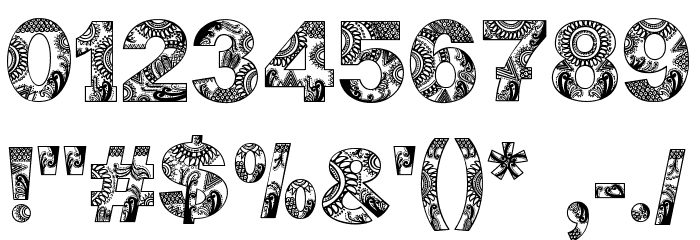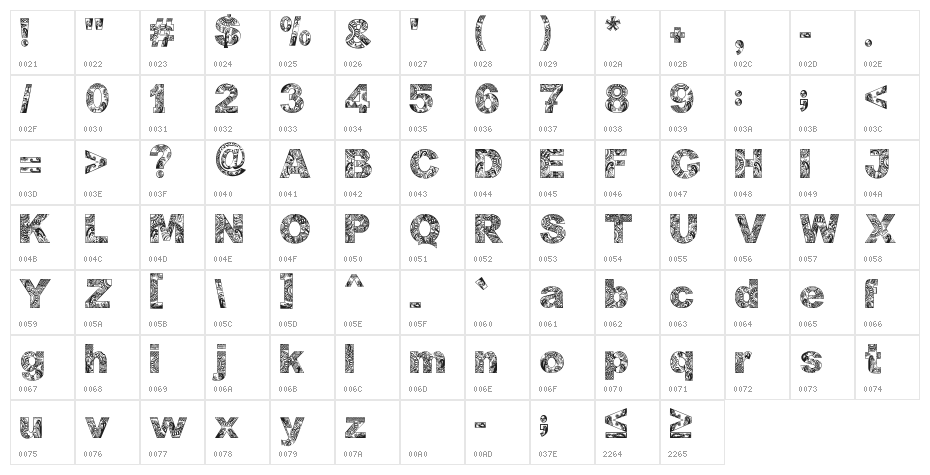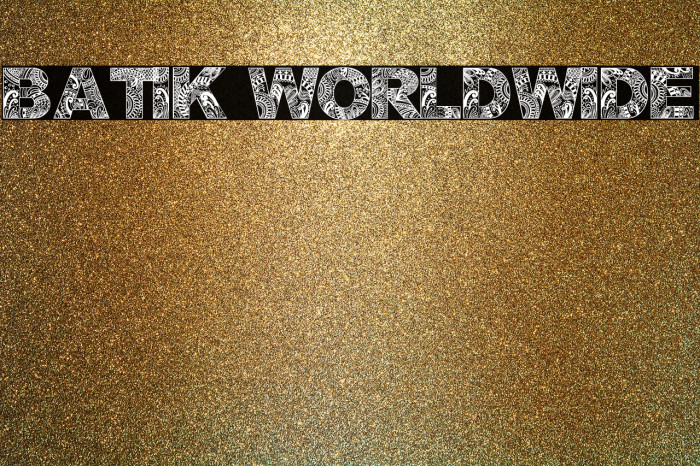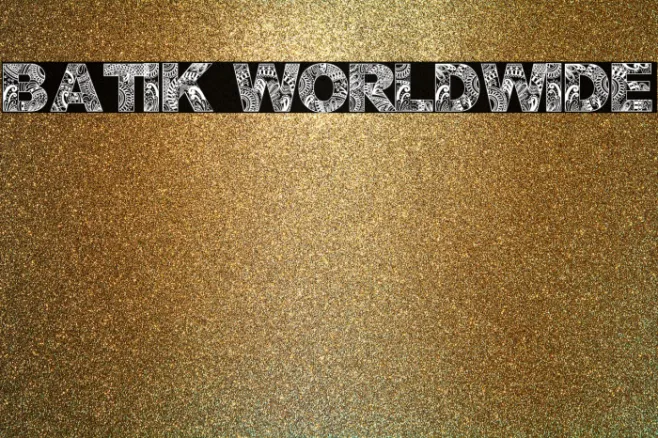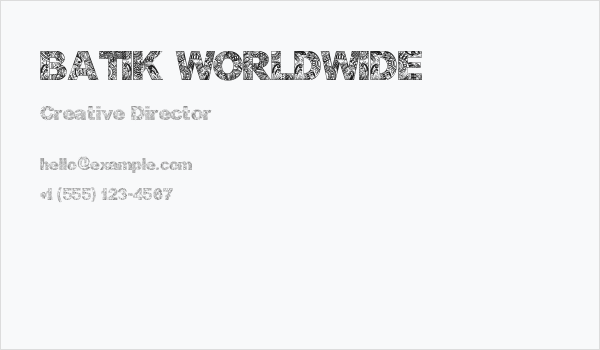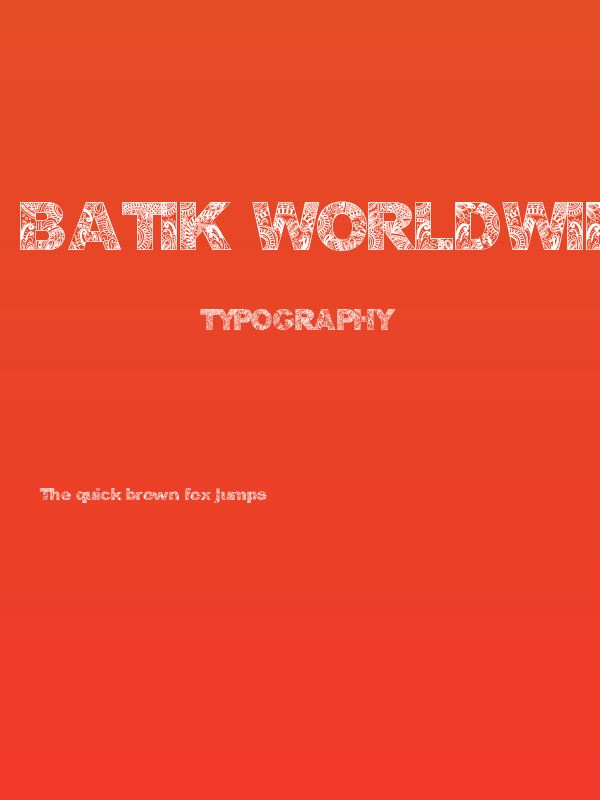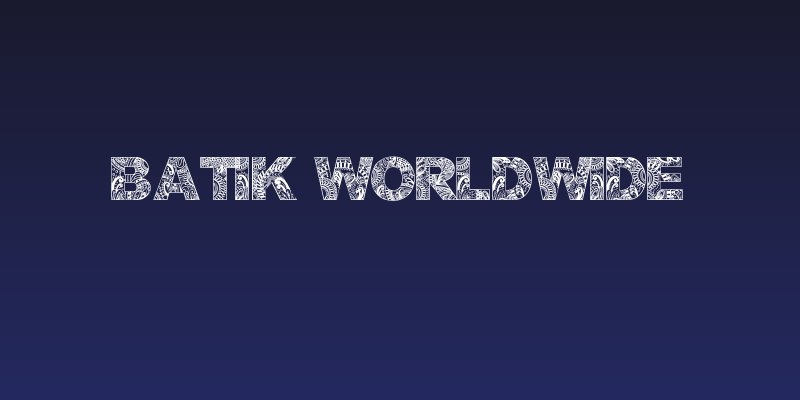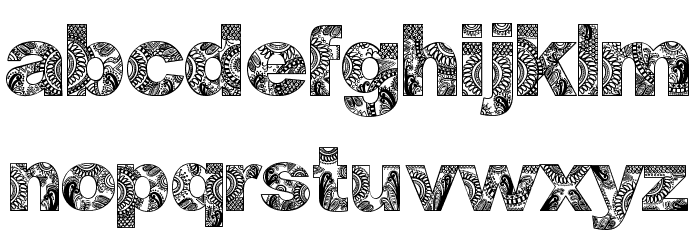
BATIK WORLDWIDE Font
BATIK WORLDWIDE Description
This font features an intricate and decorative design, with each character filled with detailed patterns reminiscent of traditional batik art. The bold, uppercase and lowercase letters, as well as numbers and special characters, are adorned with swirling motifs and geometric shapes, creating a visually captivating effect. The font's unique style makes it stand out, offering a blend of cultural artistry and modern typography. Its elaborate design is perfect for projects that require a touch of elegance and creativity, making it suitable for artistic and decorative purposes.
| Proposed Projects | Ideal for artistic projects, cultural event posters, creative branding, and decorative invitations. |